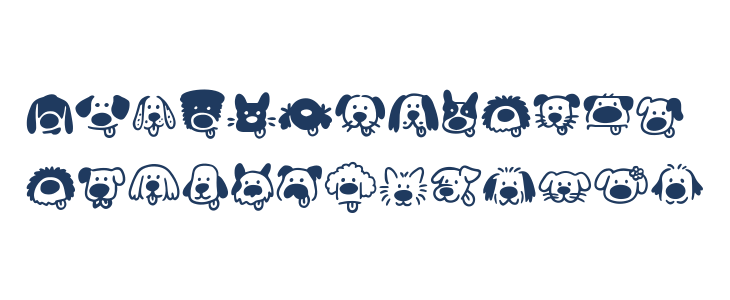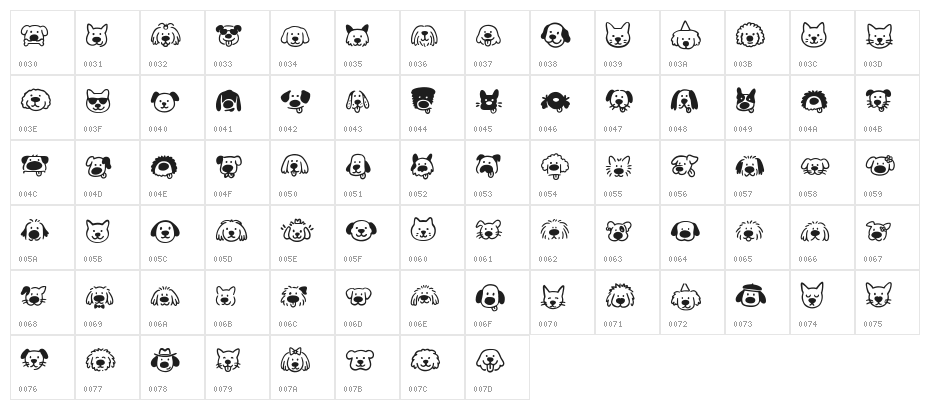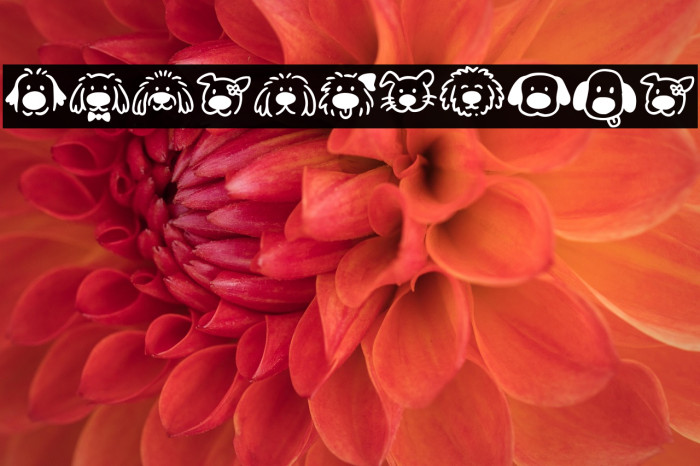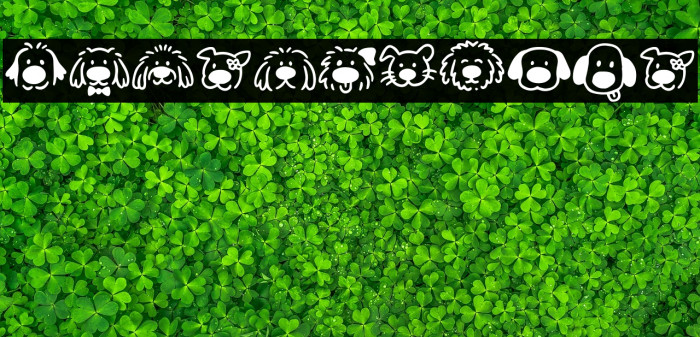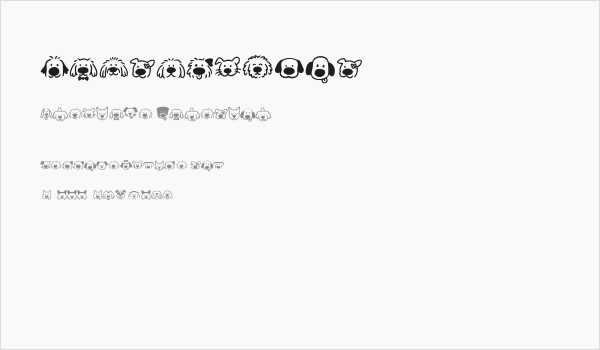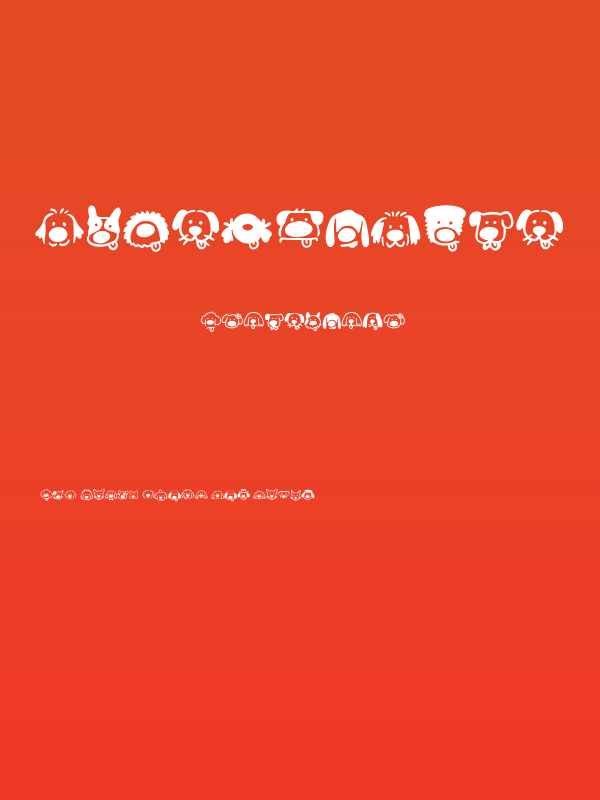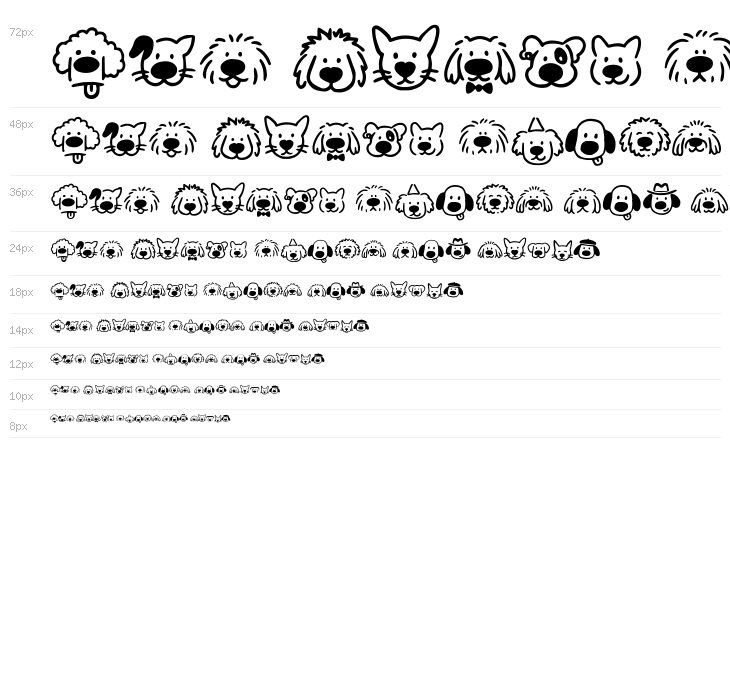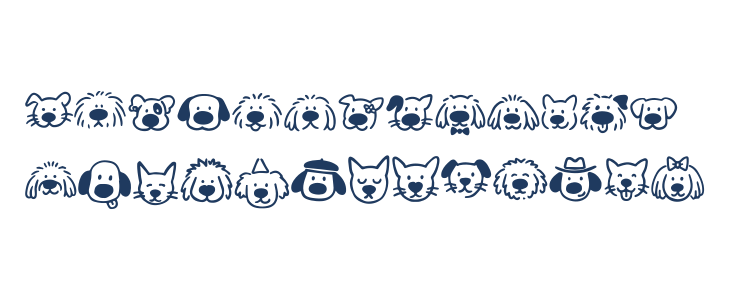
Zingflawdog Font
Zingflawdog Description
A playful and whimsical decorative font composed entirely of cartoon dog and cat faces, each character represented by a unique illustrated animal head with bold, rounded lines and expressive features.
| Overall Style | Playful, Whimsical, Decorative |
| Use Case | Logos, Posters, Decorative headings, Children's materials |
| Proposed Projects | Children's books, pet store branding, playful posters, greeting cards, educational materials, party invitations. |